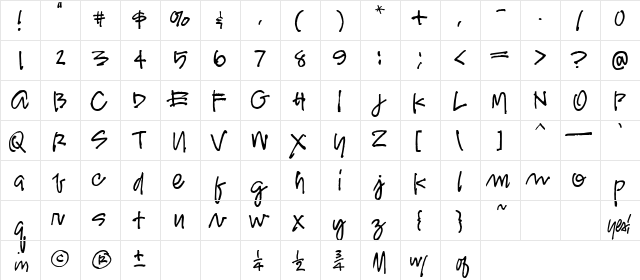
PlzScript Regular Font Preview
PlzScript Regular
PlzScript Regular Font Details
Design Context for PlzScript Typeface
PlzScript brings a calligraphic fluidity to the page — its connecting strokes and expressive curves give it an unmistakably human quality.